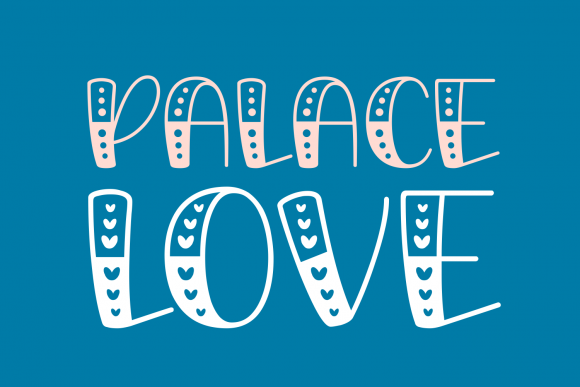
Palace Love Font
Adorn your designs with Palace Love, a stunning display font that exudes charm and playfulness. A brainchild of the creative foundry 7NTypes, this font enchants with its unique letterforms, perfect for adding a touch of whimsy and wonder to your projects.
Palace Love is not just a font; it's an expression of artistic freedom. Each letter dances across the page, evoking a sense of joy and enchantment. Whether you're designing a children's book, creating posters, or crafting eye-catching brand logos, Palace Love will make your words shine.
With its playful curves and captivating flourishes, Palace Love captivates the eye. Its bold strokes and dynamic shapes add a touch of magic to any design. Let your imagination soar as you explore the endless possibilities of this versatile font.
Unlock the power of Palace Love and transform your designs into masterpieces. Its versatility knows no bounds, making it the perfect choice for a wide range of projects. Unleash your creativity and let your words dance with delight.
Don't settle for ordinary fonts that blend into the background. Choose Palace Love and let your designs take center stage. Its unique charm and captivating beauty will leave a lasting impression on your audience. Elevate your designs to new heights with Palace Love, the font that captures hearts and ignites imaginations.